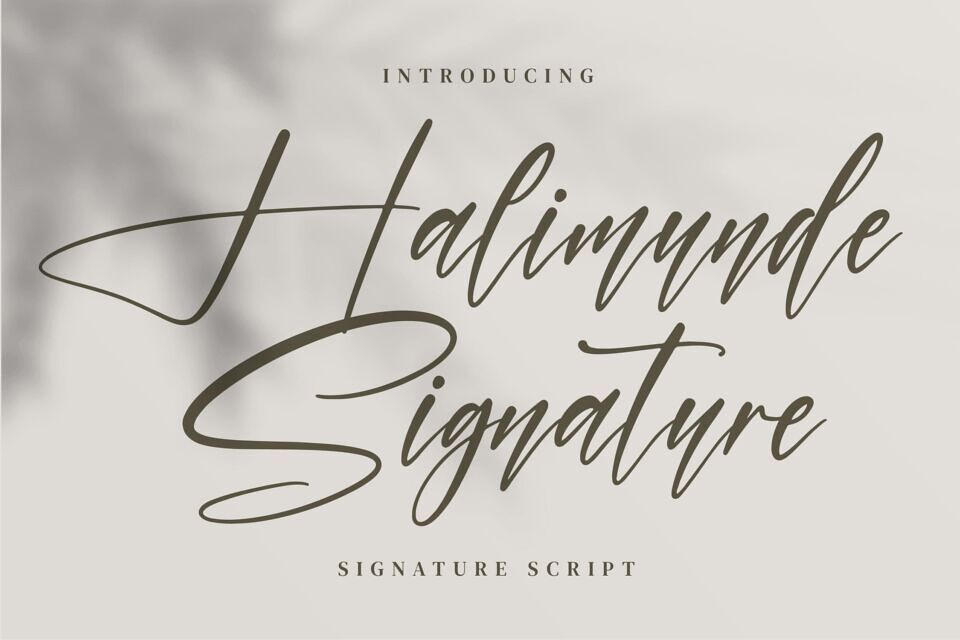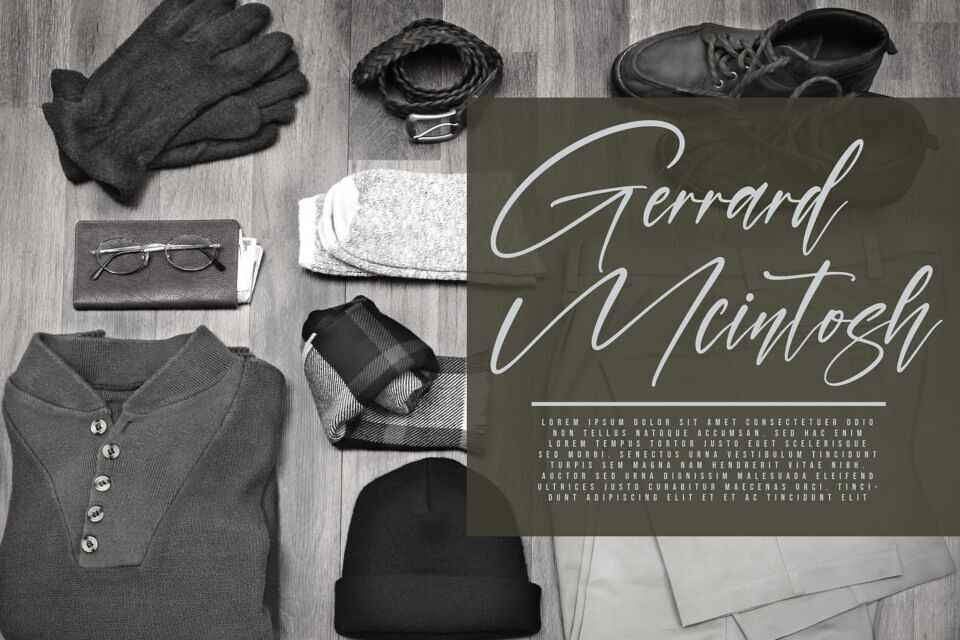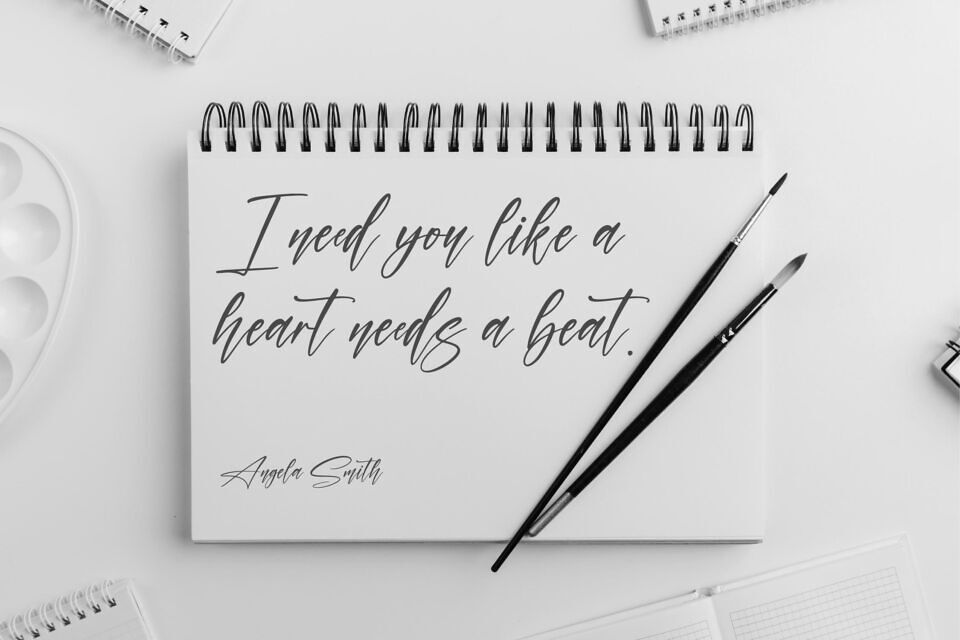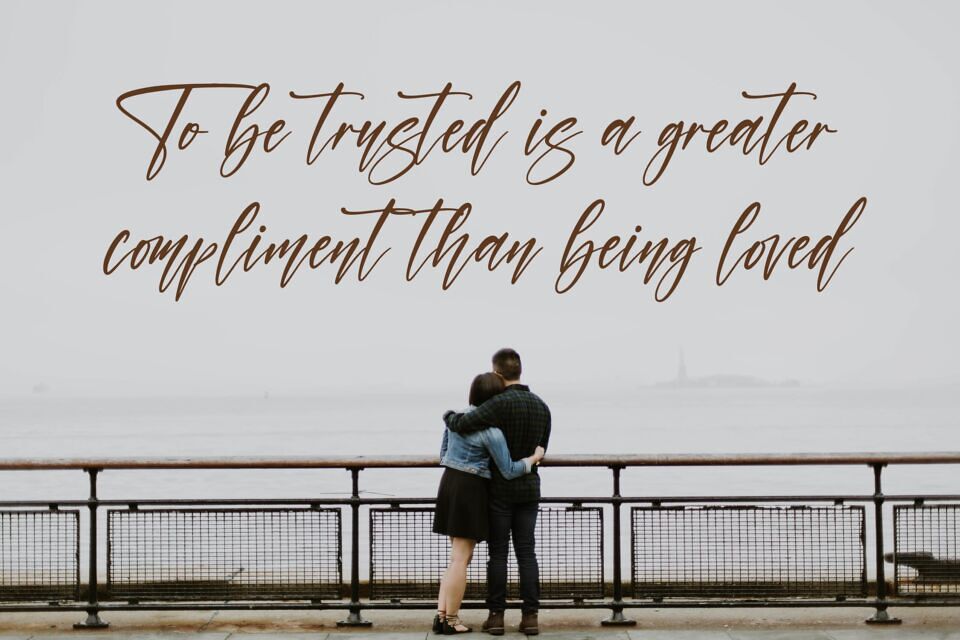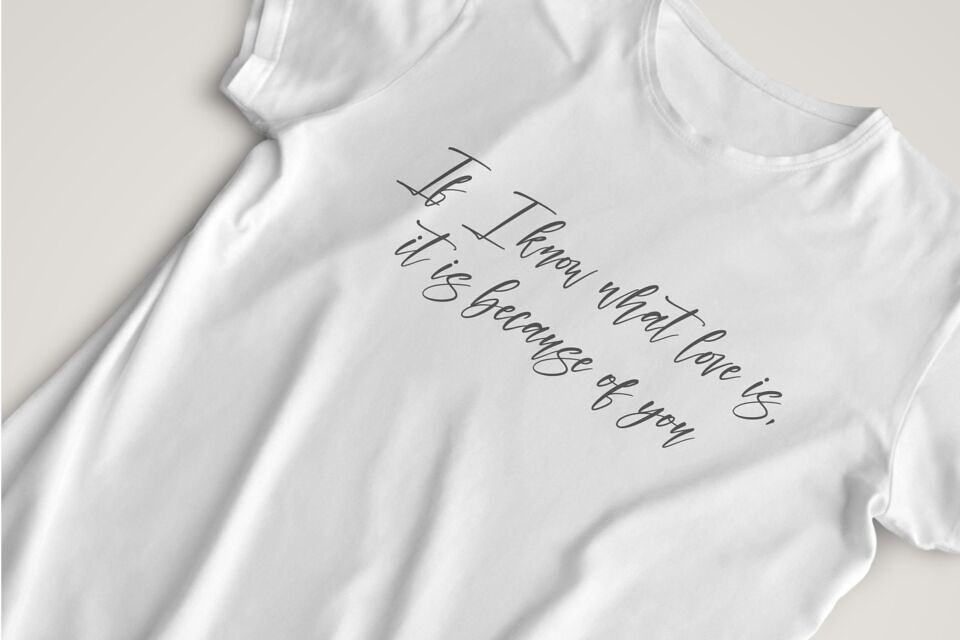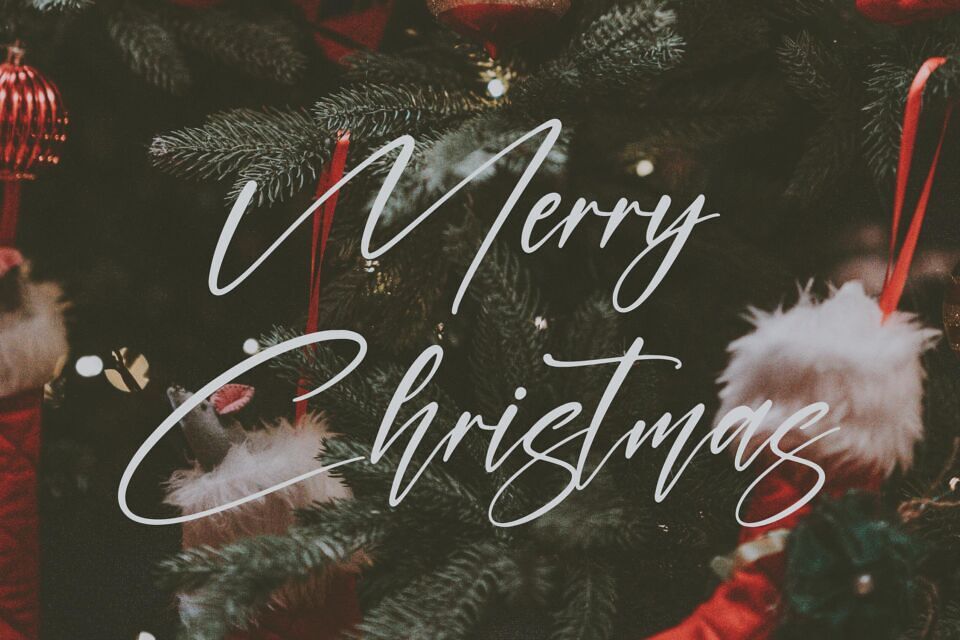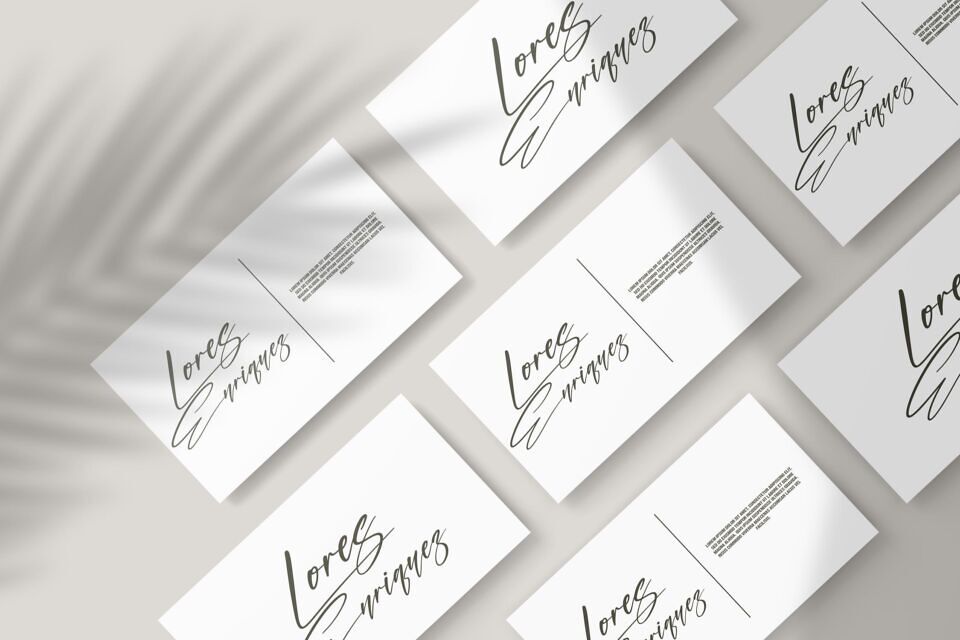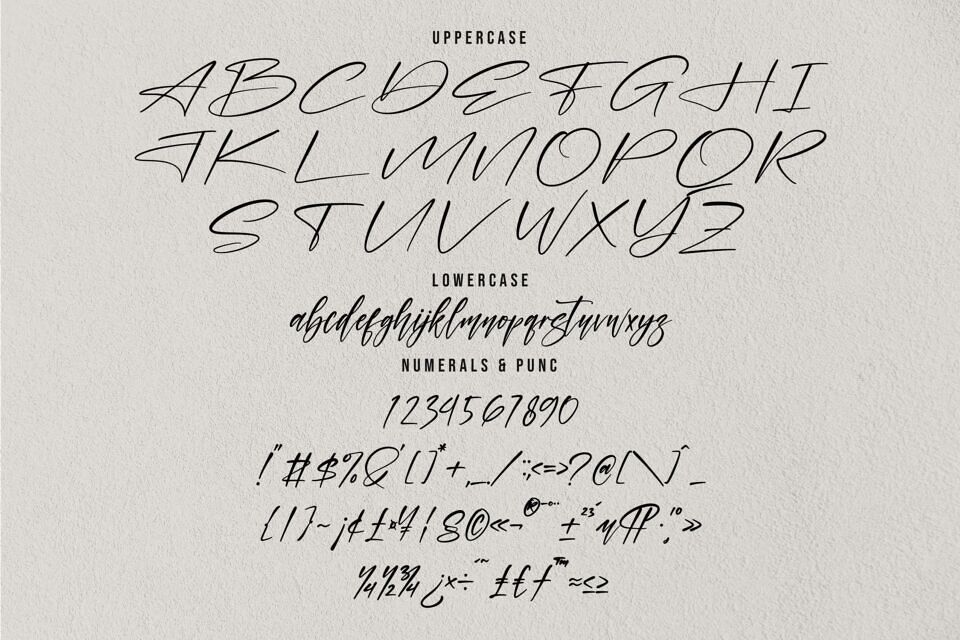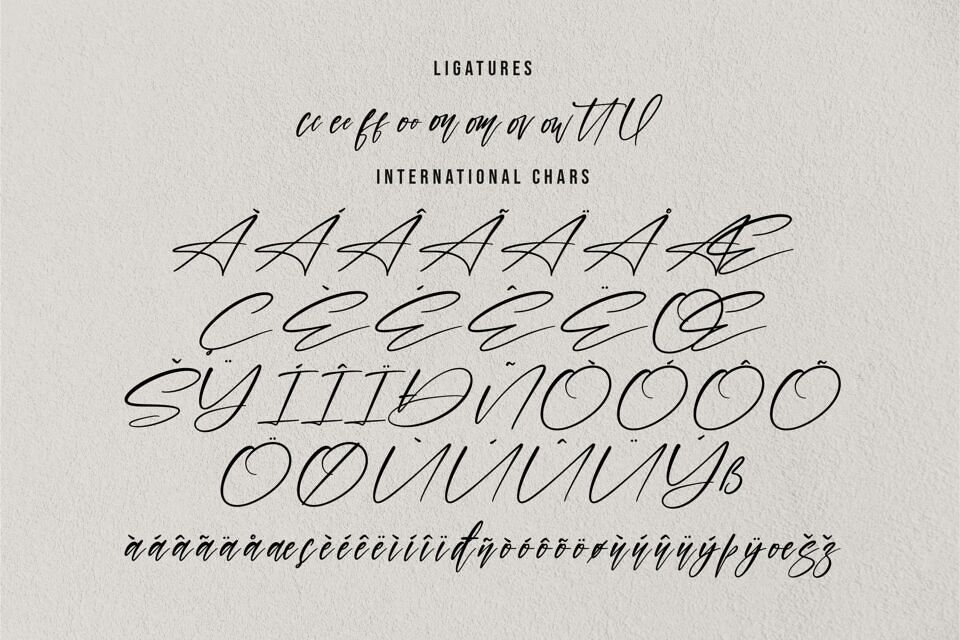
Halimunde Signature is a beautiful signature script font, suitable for any projects such as: logos, branding projects, homeware designs, product packaging, mugs, quotes, posters, shopping bags, t-shirts, book covers, name card, invitation cards, greeting cards, label, photography, watermark, special events, and all your other lovely projects that need a beautiful script taste.